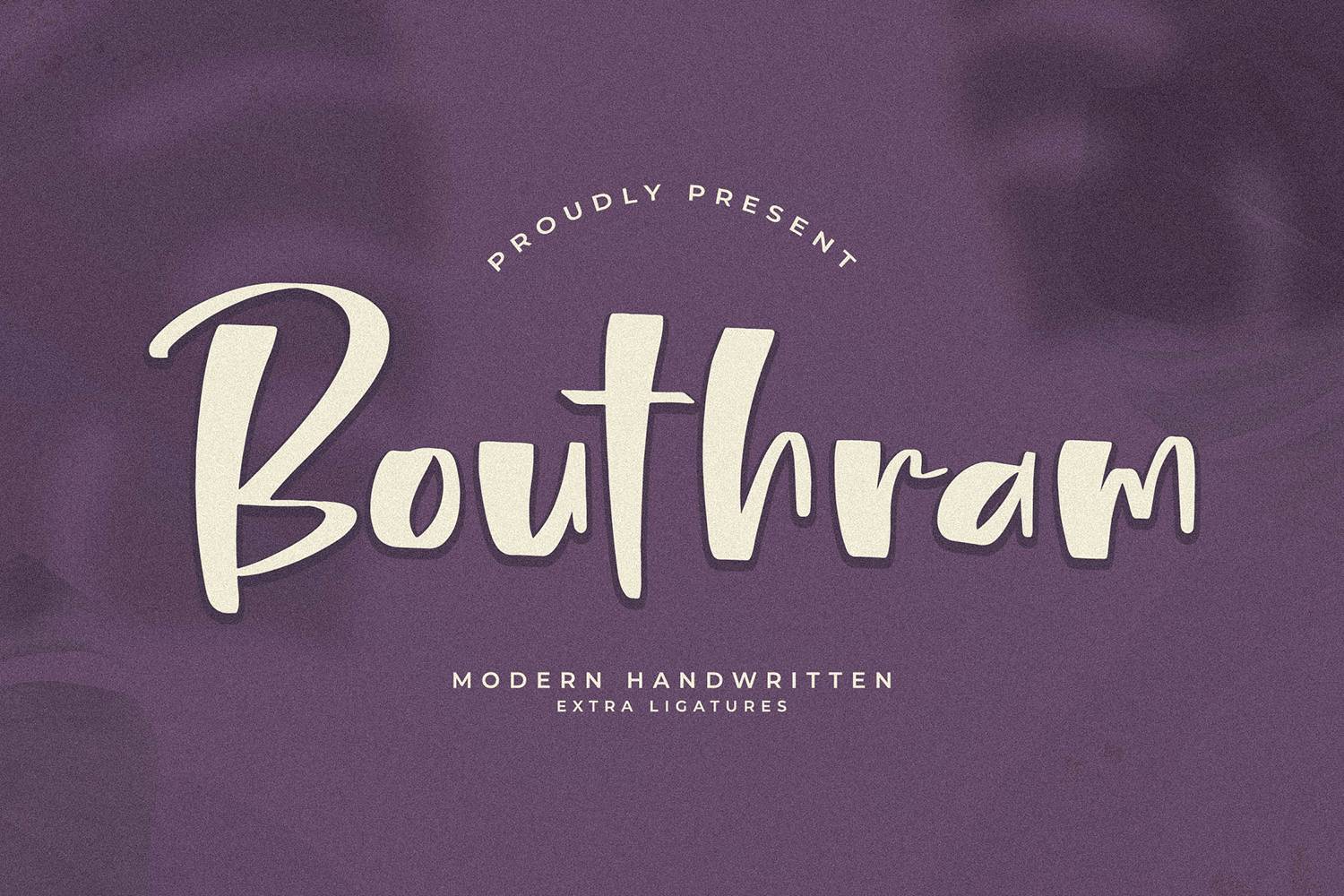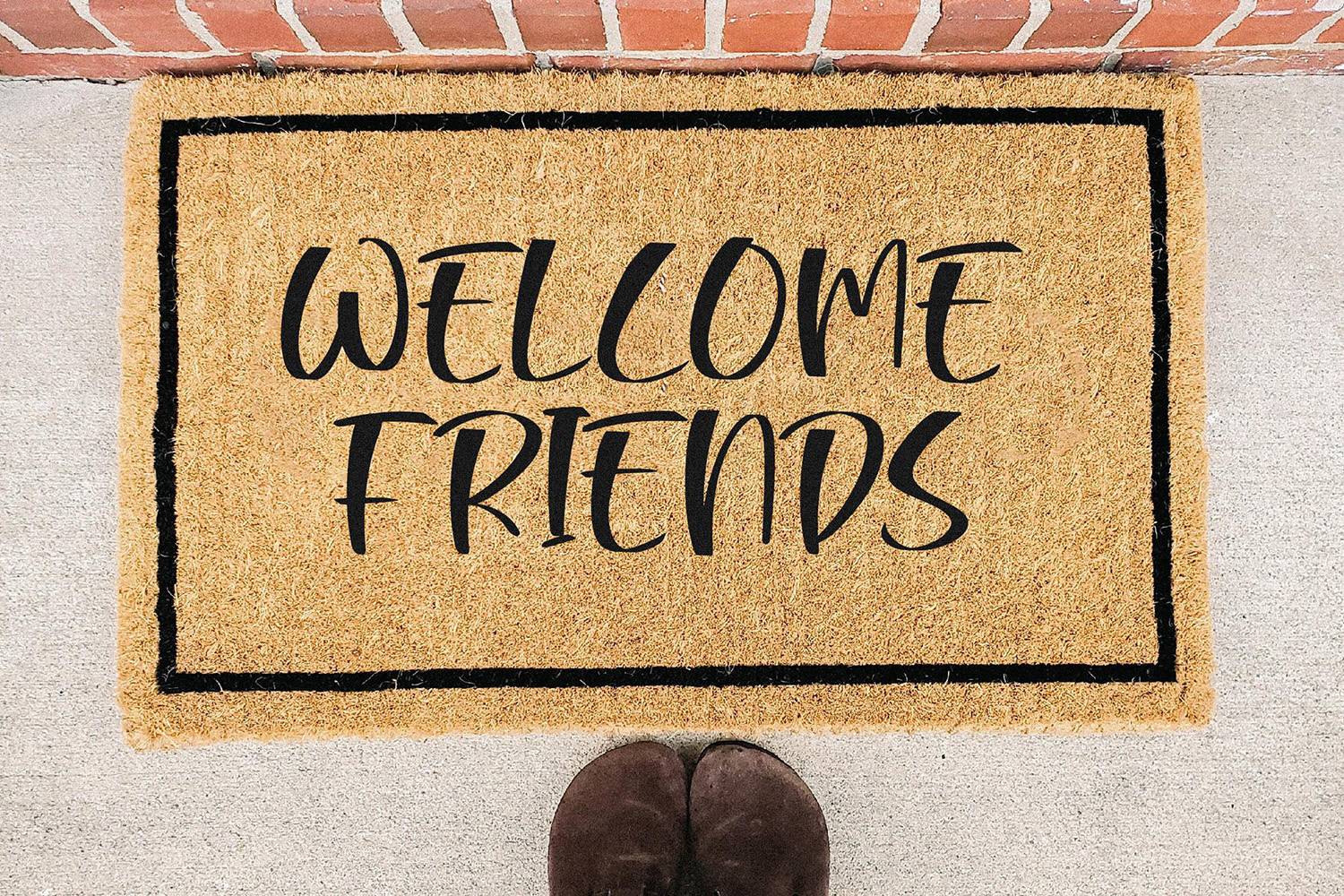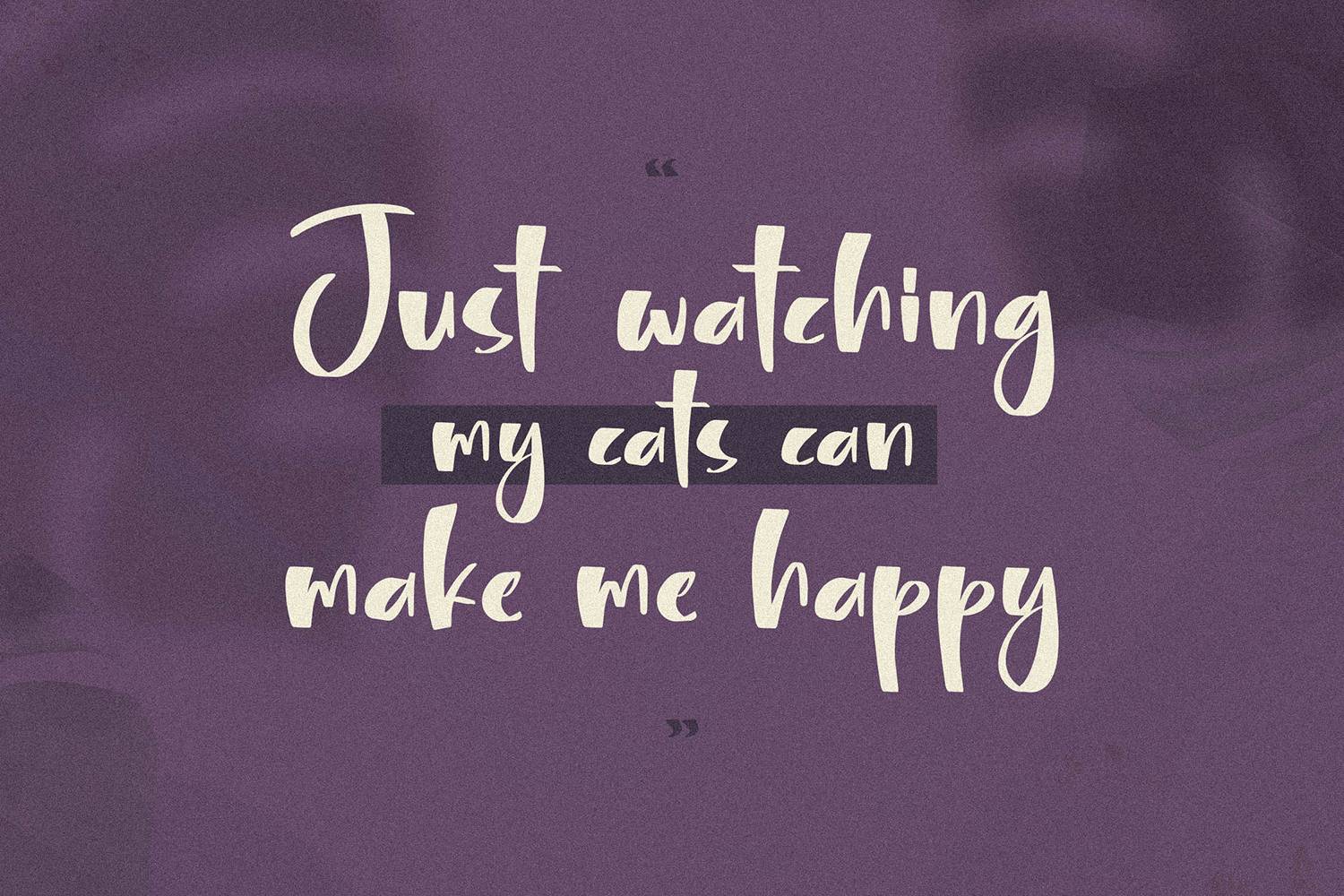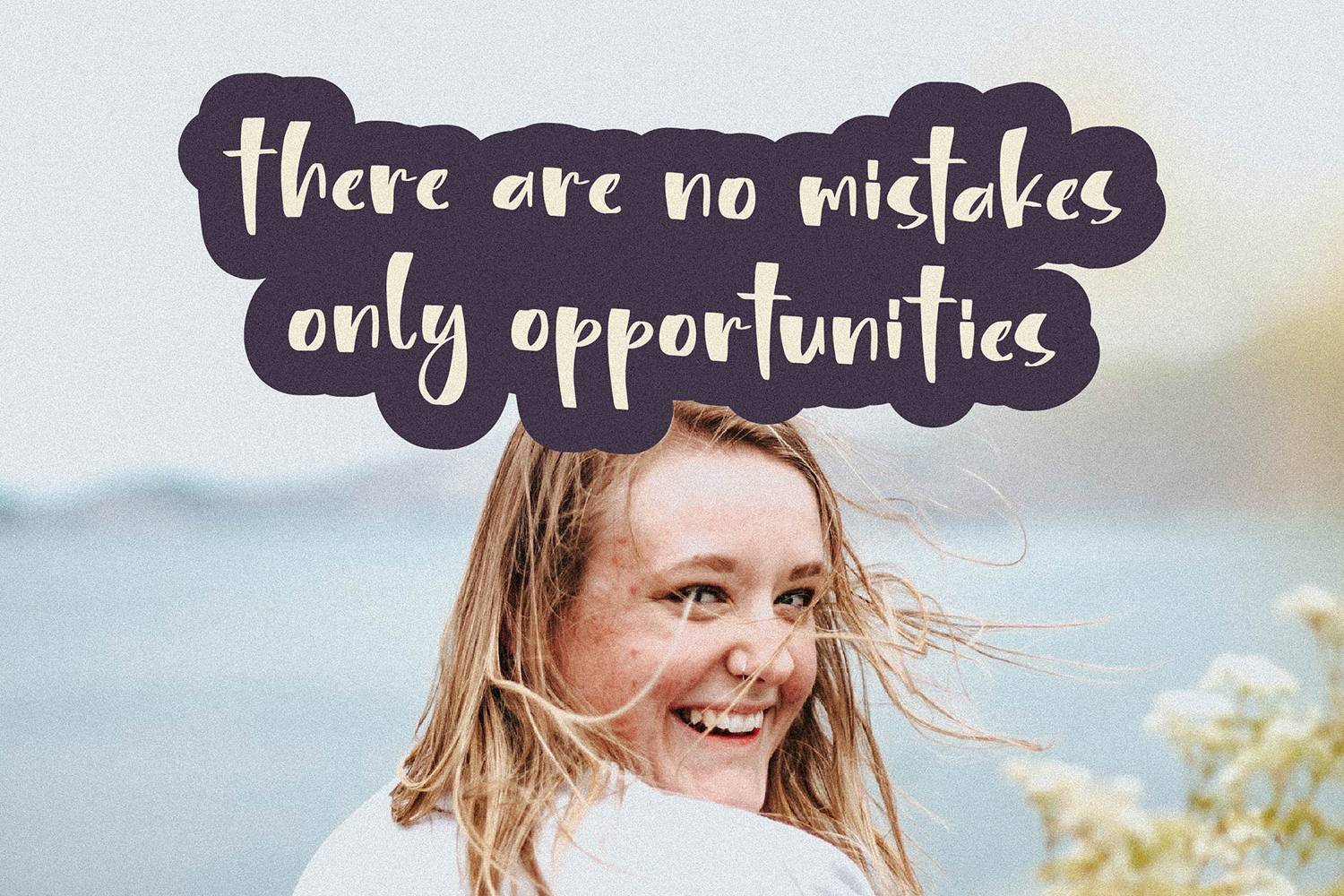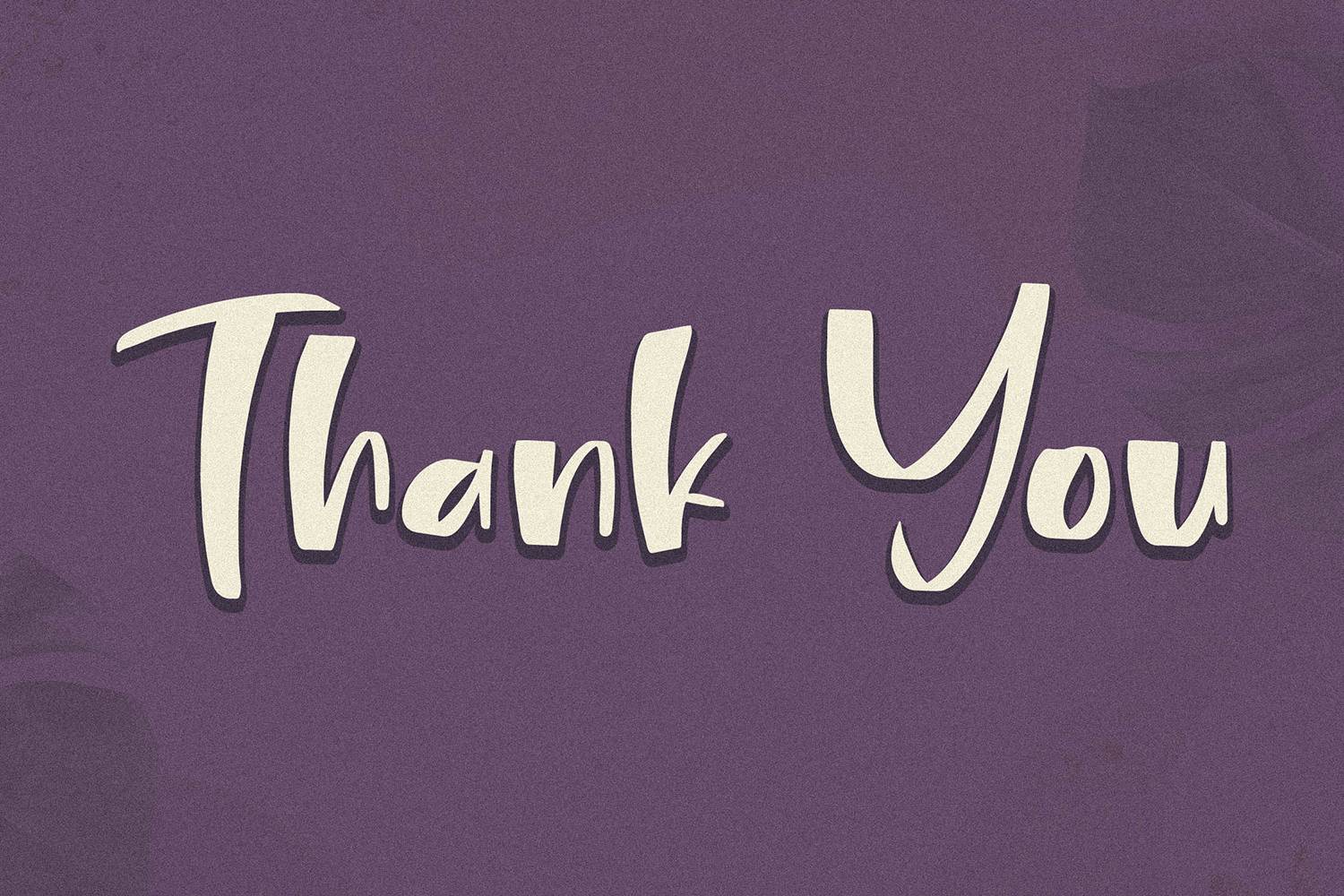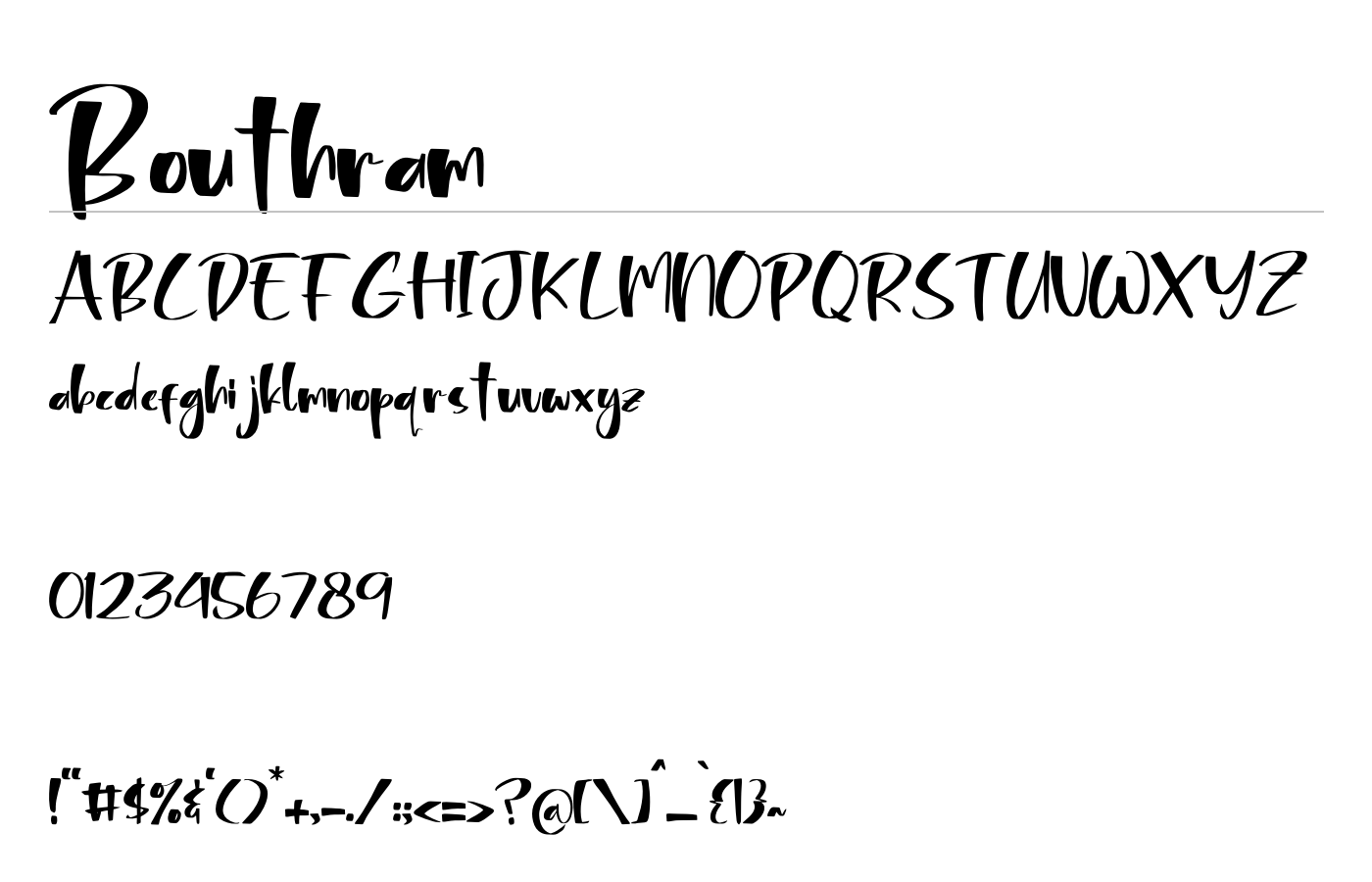
Bouthram is a lively and modern script font with a hand-brushed feel, featuring bold strokes and a dynamic flow that adds character and personality. Its tall x-height and varied stroke widths create a vibrant, informal style ideal for creative branding, headlines, and playful design projects seeking an expressive and approachable look. This font works well where a casual yet striking impression is needed, especially in logos, posters, and social media graphics.
Bouthram Font
About Bouthram Font